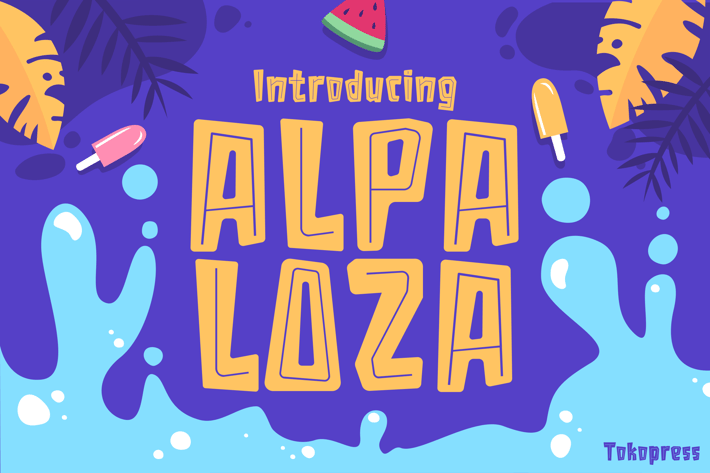
ALPALOZA - Kids Summer Font
Alpaloza - Kids Font
ALPALOZA is a bold geometric display font with retro-inspired proportions and chunky, blocky letters that bring vibrant energy to any layout. Designed with playful angles, soft inner curves, and flat-edged terminals, it exudes a cheerful 90s cartoon vibe—ideal for creating summer-themed designs with standout personality. Whether you're crafting a kid-friendly poster, playful packaging, or a fun YouTube thumbnail, ALPALOZA delivers character, clarity, and charm.
From summer sale banners and lemonade stands to kids' channels, birthday invites, and mobile games, ALPALOZA adds the splash of personality your design needs. Its joyful visual rhythm captures attention instantly, making it a go-to choice for brands that want to feel youthful, bold, and welcoming. If your project demands a playful twist and visual confidence, this font is your perfect match.
- Bold geometric structure – makes your text pop in any layout
- Retro cartoon charm – perfect for nostalgic, summer-themed, and kid-focused designs
- Soft curves with structured forms – maintains readability while staying playful
- Eye-catching letter balance – ideal for large displays like posters, signage, or packaging